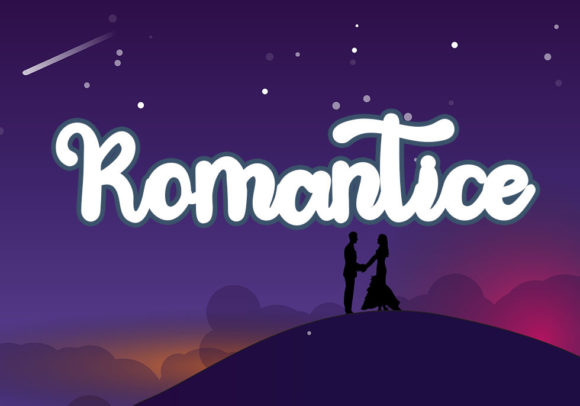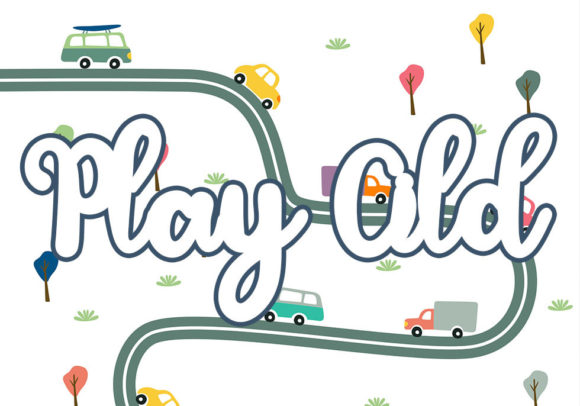
Dinosaur Font: The Cute and Cursive Script Font for Your Design Needs
Are you looking for a font that can add a touch of cuteness and elegance to your designs? Look no further than the Dinosaur font! This adorable and cursive script font is perfect for branding, editorial designs, and any project that requires a personal touch. In this article, we’ll explore the features and benefits of the Dinosaur font, and why it’s a great addition to your design toolkit.
What is Dinosaur Font?
Dinosaur font is a modern script font that is characterized by its smooth curves and flowing lines. It’s a highly legible font that is perfect for designs that require a touch of sophistication and whimsy. The font is designed to be versatile and can be used for a wide range of projects, from branding and advertising to editorial designs and crafts.
Key Features of Dinosaur Font
- Smooth Curves: The Dinosaur font features smooth curves and flowing lines that give it a elegant and refined look.
- Cute and Cursive: The font has a playful and cursive feel that makes it perfect for designs that require a touch of whimsy and personality.
- Highly Legible: The font is designed to be highly legible, making it perfect for use in body text, headings, and titles.
- Versatile: The Dinosaur font can be used for a wide range of projects, from branding and advertising to editorial designs and crafts.
Benefits of Using Dinosaur Font
So, why should you use the Dinosaur font in your designs? Here are just a few benefits:
- Adds Personality: The Dinosaur font adds a touch of personality and whimsy to your designs, making them stand out from the crowd.
- Perfect for Branding: The font is perfect for branding projects, as it’s highly legible and can be used to create a consistent visual identity.
- Easy to Read: The font is highly legible, making it easy to read and perfect for use in body text and headings.
- Customizable: The Dinosaur font can be customized to fit your design needs, making it a versatile addition to your toolkit.
How to Use Dinosaur Font in Your Designs
Using the Dinosaur font in your designs is easy! Here are a few tips:
- Pair it with Other Fonts: Pair the Dinosaur font with other fonts to create a unique and visually appealing combination.
- Use it for Headings: Use the Dinosaur font for headings and titles to add a touch of personality and whimsy to your designs.
In conclusion, the Dinosaur font is a cute and cursive script font that is perfect for designers and crafters looking to add a touch of personality and whimsy to their designs. With its smooth curves, highly legible design, and versatility, it’s a great addition to any design toolkit. Whether you’re working on a branding project, editorial design, or craft project, the Dinosaur font is sure to deliver great results. So why not give it a try and see the difference it can make in your designs?